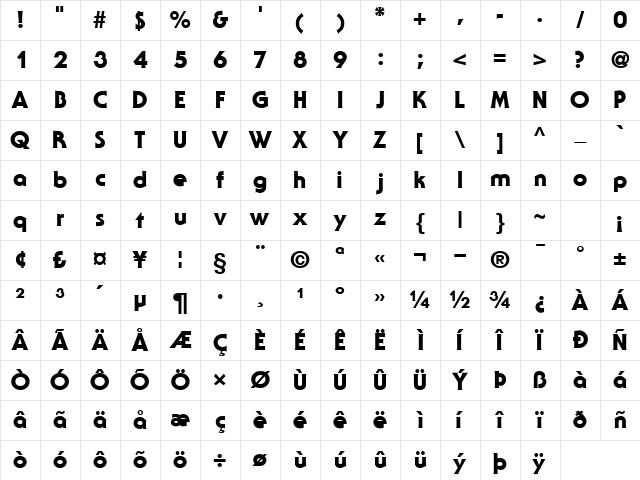
Complete UbiqGothicUltraSSK Regular glyph index. Displaying only characters natively supported by UbiqGothicUltraSSK Regular font.
UbiqGothicUltraSSK takes a clean, functional approach - its unadorned letterforms prioritise legibility and work reliably across screen and print environments.
Font Pairing: Works well alongside a characterful serif or display font that can carry the expressive load while UbiqGothicUltraSSK handles the functional copy.
Pro Tip: Use UbiqGothicUltraSSK for UI labels, navigation, and short-form body copy where clean legibility is the priority.